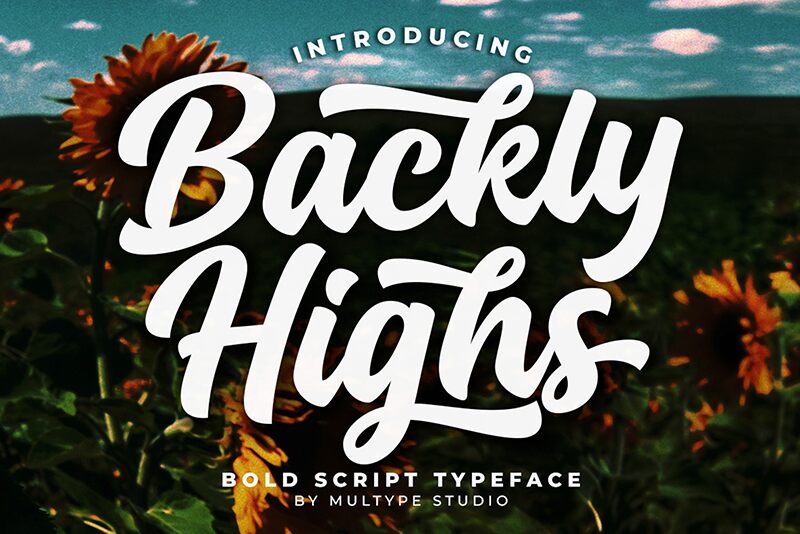
Backly Highs
Backly Highs font by Multype Studio introduces a bold handwritten style ideal for adding a nostalgic and vintage edge to your projects. With its dynamic, flowing letters and elegant charm, this free font is perfect for any creative endeavor requiring a connected cursive look.
Use it in packaging, branding, book covers, greeting cards, invitations, product designs, posters, magazines, or apparel designs.